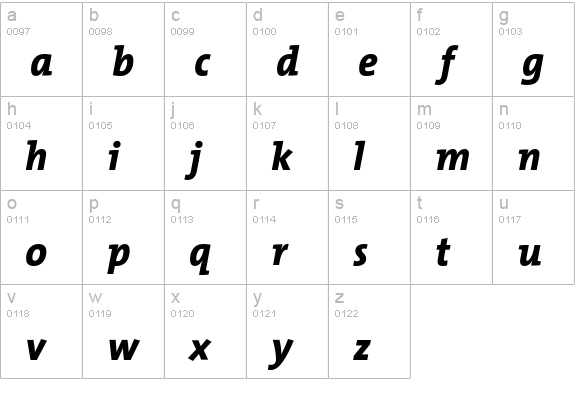
TheMix ExtraBold Italic Font Details
TheMix ExtraBold Italic is an extra-heavy, attention-grabbing, italic variant in the TheMix typeface family \xE2\x80\x94 well suited to high-impact headlines, posters, and bold branding.
TheMix ExtraBold Italic font is an exquisite typeface that effortlessly combines strength and elegance. Its bold and slanted design exudes confidence, making it the perfect choice for captivating headlines, impactful titles, and eye-catching graphic designs. This font possesses a unique blend of sharp edges and smooth curves, creating a harmonious balance that commands attention. Its large letterforms and distinctive slant add a touch of drama and sophistication, making any text stand out with flair. TheMix ExtraBold Italic font is not only visually stunning but also highly versatile. Its versatility allows it to excel in a wide range of design projects, including branding, advertising, packaging, and editorial design. No matter the medium, this font will leave a lasting impression on viewers. What makes this font even more appealing is that it is freely available to download at FontsMarket.com. This means that you can effortlessly access this exceptional typeface and incorporate it into your projects without any cost. The accessibility and convenience of obtaining this font for free make it a valuable asset for designers, creatives, and anyone seeking to elevate their visual communications. With its boldness, elegance, and availability, TheMix ExtraBold Italic font is a must-have in any designer's toolkit. Its ability to effortlessly captivate and leave a lasting impact on viewers will undoubtedly elevate your designs to new heights. So download this font today from FontsMarket.com and unleash its immense potential in your creative endeavors.